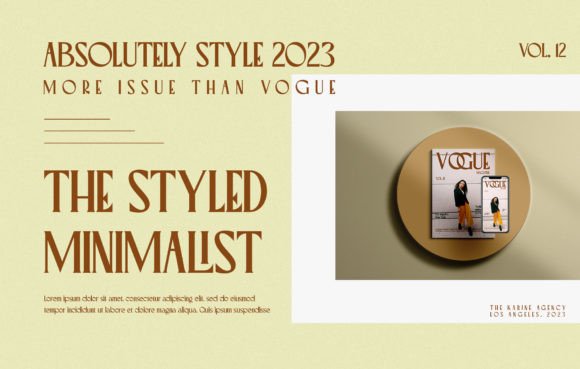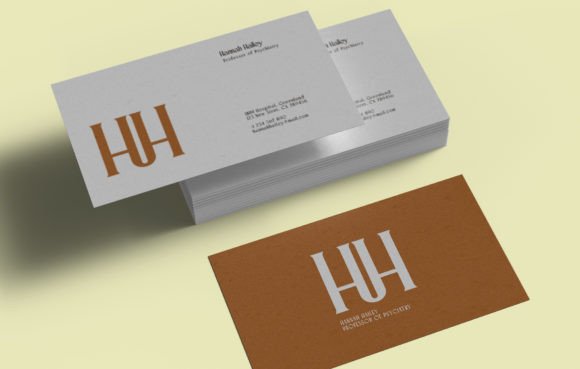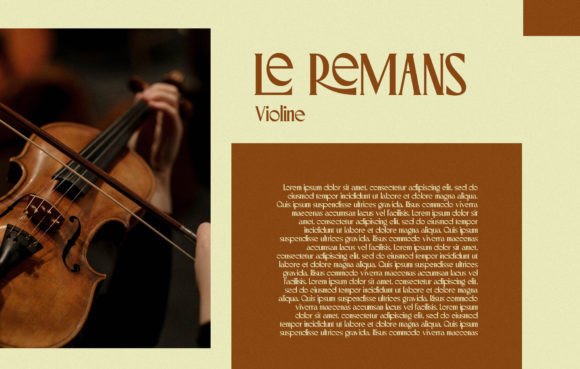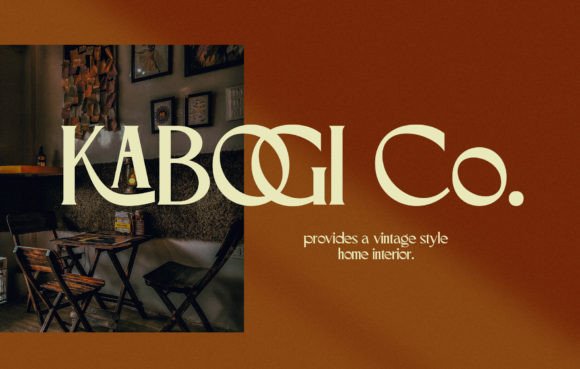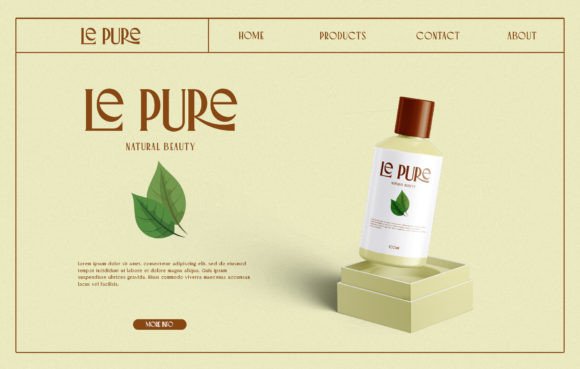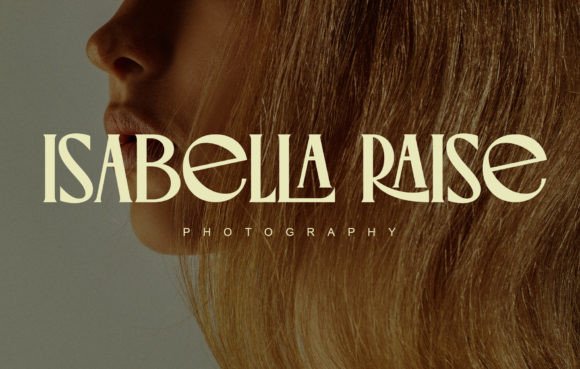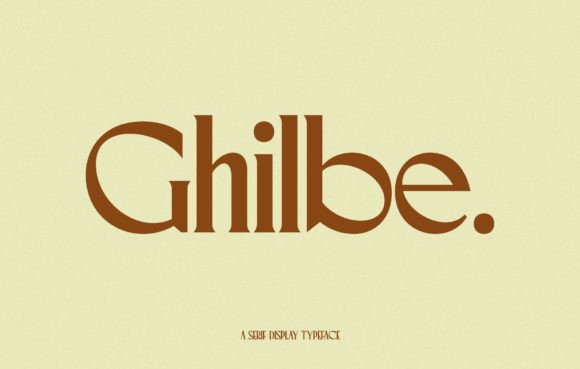
Ghilbe Font: Elevate Your Designs with Timeless Elegance
In the world of typography, fonts play a crucial role in conveying the tone and personality of a brand or design. For those seeking a typeface that exudes classic sophistication with a modern twist, Ghilbe Font is an exceptional choice. This stylish serif font seamlessly blends traditional elegance with contemporary flair, making it an ideal selection for a wide range of creative projects.
The Essence of Ghilbe Font
Ghilbe is a meticulously crafted serif font that boasts refined serifs and well-proportioned letterforms. Its design is characterized by a perfect balance of classic and modern elements, resulting in a typeface that is both timeless and sophisticated. The font’s elegant appearance is well-suited for high-end branding, editorial work, and luxury designs, where a touch of refinement and poise is essential.
Key Features of Ghilbe Font
- Refined Serifs: Ghilbe’s serifs are carefully designed to add a level of sophistication and elegance to any design.
- Well-Proportioned Letterforms: The font’s letterforms are meticulously crafted to ensure optimal readability and aesthetic appeal.
- Timeless Beauty: Ghilbe’s classic design ensures that it remains relevant and stylish, even in the face of changing design trends.
- Versatility: This font is suitable for a wide range of applications, from branding and editorial work to luxury designs and packaging.
Applications of Ghilbe Font
Ghilbe Font is an incredibly versatile typeface that can be used in various design contexts. Some of the most popular applications include:
- Branding: Ghilbe’s elegant appearance makes it an excellent choice for logos, trademarks, and brand identities.
- Editorial Work: The font’s refined serifs and classic design make it well-suited for editorial projects, such as magazines, newspapers, and books.
- Luxury Designs: Ghilbe’s sophisticated appearance is perfect for high-end designs, including luxury packaging, advertising, and marketing materials.
Benefits of Using Ghilbe Font
By incorporating Ghilbe Font into your designs, you can enjoy a range of benefits, including:
- Enhanced Credibility: The font’s classic and sophisticated design can help establish credibility and trust with your audience.
- Increased Readability: Ghilbe’s well-proportioned letterforms ensure optimal readability, making it easier for your audience to engage with your content.
- Unique Visual Identity: The font’s distinctive appearance can help you create a unique visual identity that sets you apart from others.
Tips for Using Ghilbe Font Effectively
To get the most out of Ghilbe Font, consider the following tips:
- Pair with Complementary Fonts: Combine Ghilbe with complementary fonts to create a harmonious and visually appealing typography.
- Experiment with Font Sizes: Play with different font sizes to create visual hierarchy and emphasize key elements.
- Pay Attention to Line Spacing: Ensure adequate line spacing to maintain readability and prevent the text from becoming too dense.
Ghilbe Font is a stylish serif font that offers a perfect blend of classic elegance and modern sophistication. Its refined serifs, well-proportioned letterforms, and timeless beauty make it an excellent choice for designers and crafters seeking to elevate their designs. Whether you’re working on branding, editorial work, or luxury designs, Ghilbe Font is sure to bring a touch of class and sophistication to your projects.